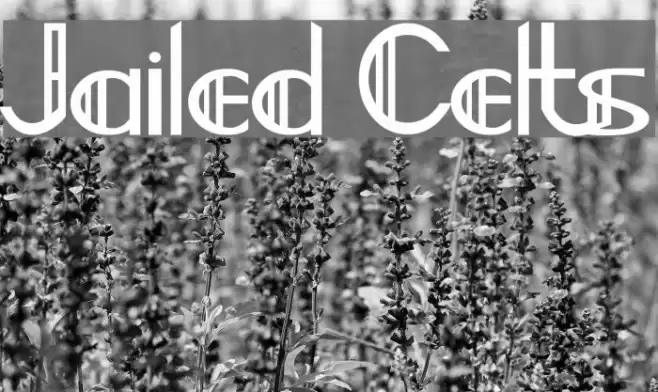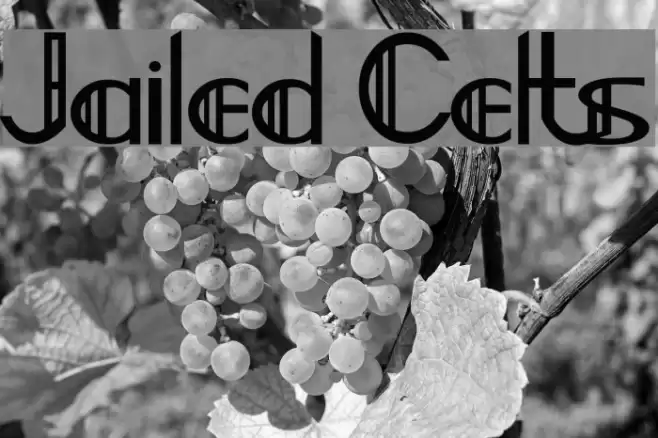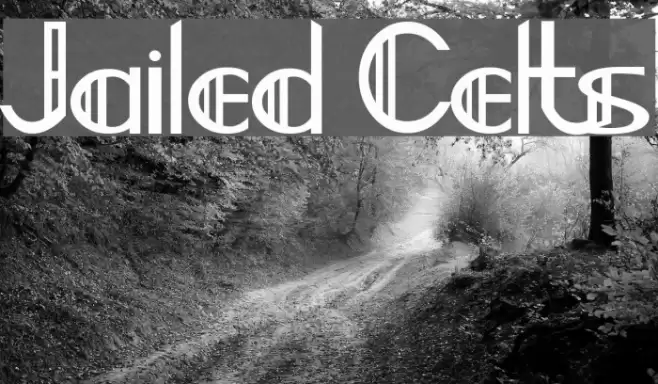
Jailed Celts Font
Jailed Celts Description
This font features a unique and bold design with a modern twist, characterized by its geometric and linear elements. The uppercase letters are particularly striking, with vertical lines creating a sense of confinement or enclosure, reminiscent of bars or cages. The lowercase letters maintain a similar style but with a slightly softer approach, offering a balance between rigidity and fluidity. Numbers and special characters follow the same design principles, ensuring consistency throughout. The font's distinct appearance makes it ideal for projects that require a strong visual impact.
A bold, geometric font with linear elements and a modern, impactful style from Uncategorized fonts.
- Proposed Projects: Ideal for branding, posters, album covers, and any design needing a strong, modern aesthetic.